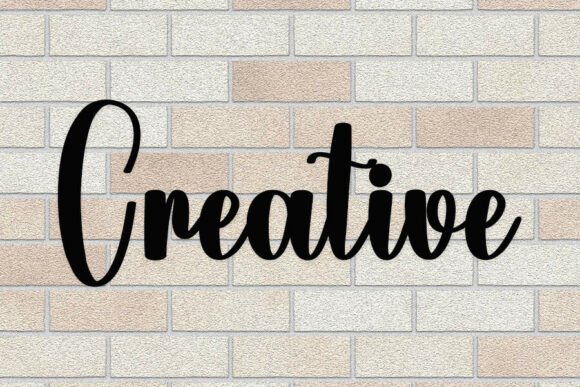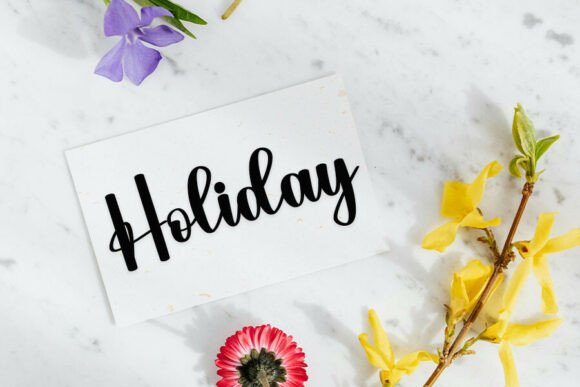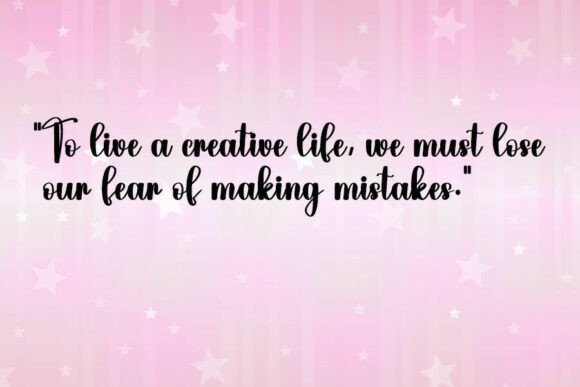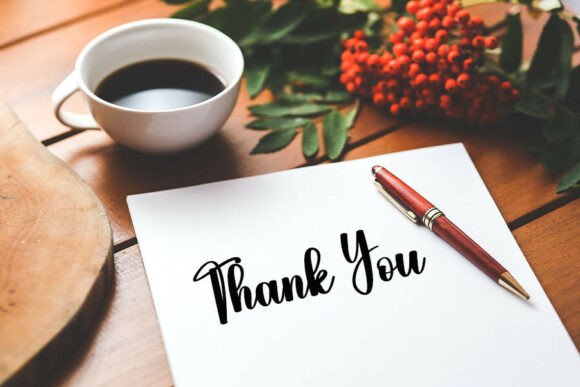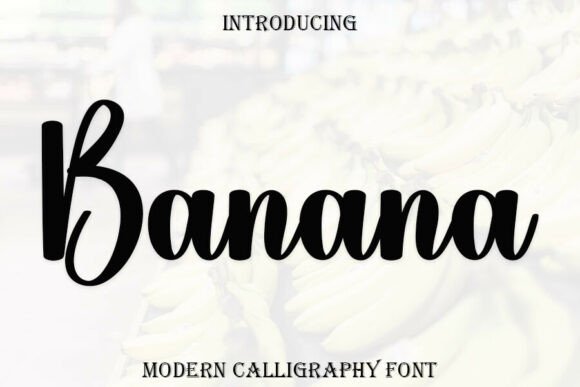
Introducing Banana Font: The Sweet and Cursive Handwritten Font for Your Design Needs
Are you looking for a font that can add a touch of elegance and whimsy to your designs? Look no further than Banana Font, a sweet and cursive handwritten font that is perfect for a variety of design projects. With its gentle and flowing curves, Banana Font is sure to bring a joyful and romantic touch to your work.
What Makes Banana Font Special?
Banana Font is a unique and versatile font that can be used for a wide range of design ideas. Its cursive and handwritten style gives it a personal and approachable feel, making it perfect for designs that require a touch of warmth and personality. Whether you’re working on a branding project, a wedding invitation, or a fashion lookbook, Banana Font is sure to impress.
Banana Font is a versatile font that can be used for a variety of design projects, including:
- Branding: Use Banana Font to create a unique and memorable brand identity that stands out from the crowd.
- Logo Design: Create a stunning logo that showcases your brand’s personality and style with Banana Font.
- Wedding Designs: Add a touch of romance and elegance to your wedding designs, including invitations, programs, and decorations.
- Greeting Cards: Create beautiful and heartfelt greeting cards for special occasions, such as birthdays, anniversaries, and holidays.
- Fashion: Use Banana Font to create stunning fashion lookbooks, marketing materials, and promotional items.
Why Choose Banana Font?
There are many reasons why Banana Font is the perfect choice for your design needs. Here are just a few:
- Elegant and Casual: Banana Font strikes the perfect balance between elegance and casualness, making it perfect for designs that require a touch of sophistication and whimsy.
- Unique and Memorable: Banana Font is a one-of-a-kind font that is sure to make your designs stand out from the crowd.
- Easy to Read: Despite its cursive style, Banana Font is easy to read and understand, making it perfect for designs that require a clear and concise message.
Tips for Using Banana Font
Here are a few tips for using Banana Font in your designs:
- Pair with Other Fonts: Banana Font pairs well with other fonts, including serif and sans-serif fonts. Experiment with different combinations to find the perfect look for your design.
- Use for Headings and Titles: Banana Font is perfect for headings and titles, where its elegant and cursive style can really shine.
- Add a Personal Touch: Use Banana Font to add a personal touch to your designs, including handwritten notes and signatures.
Banana Font is a sweet and cursive handwritten font that is perfect for a variety of design projects. With its elegant and casual style, it’s sure to add a joyful and romantic touch to your work. Whether you’re a designer, crafters, or DIY enthusiast, Banana Font is a great choice for anyone looking to create beautiful and unique designs.